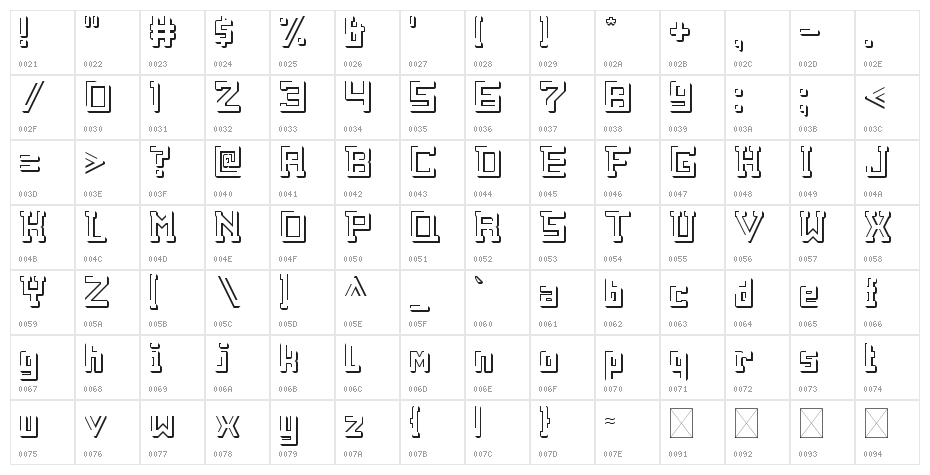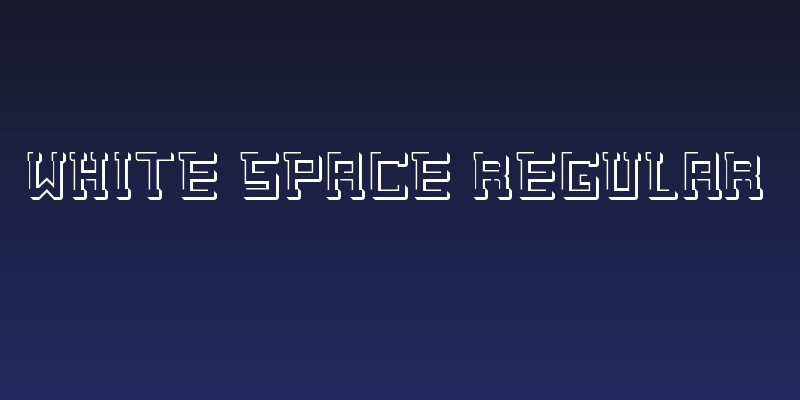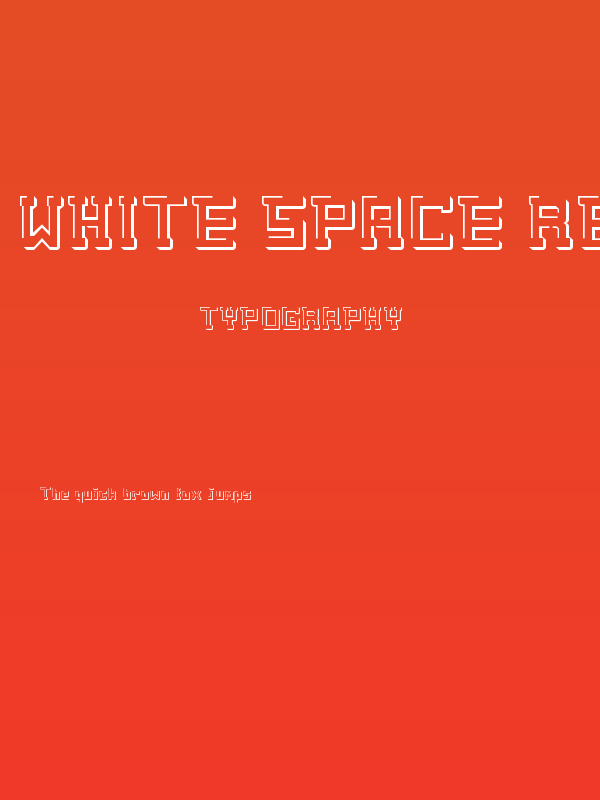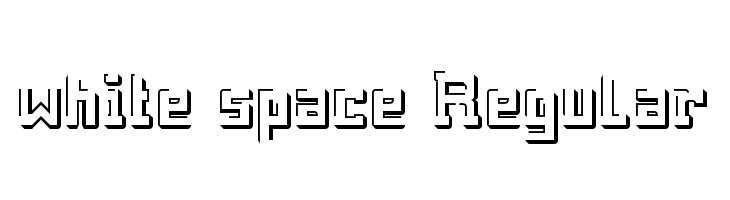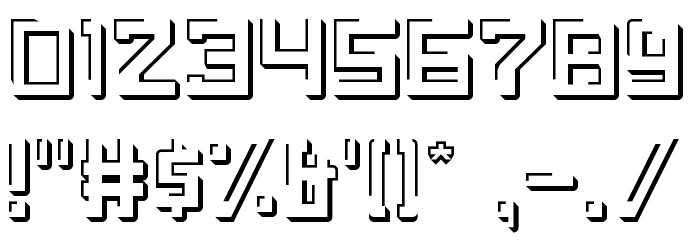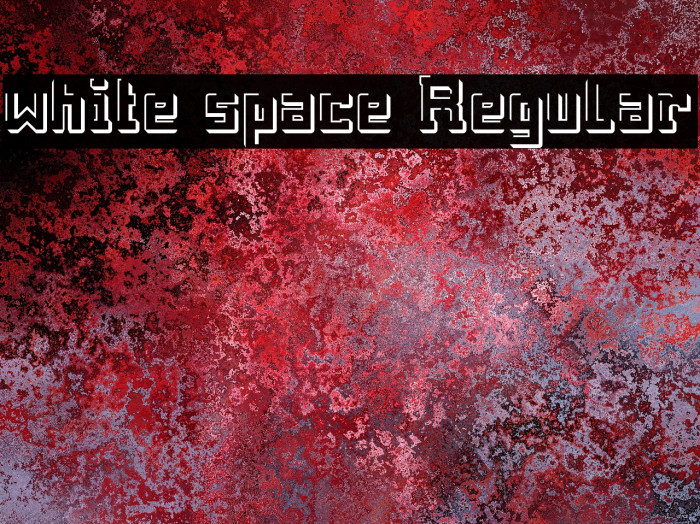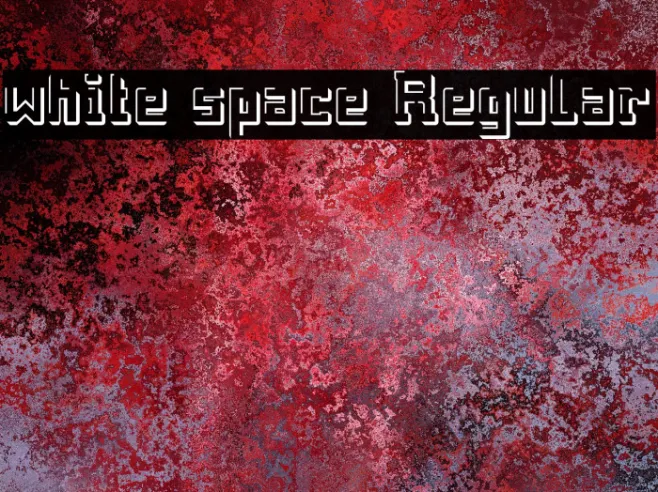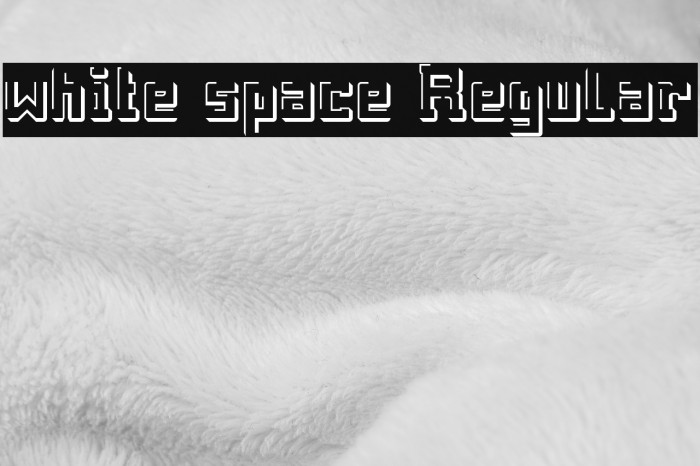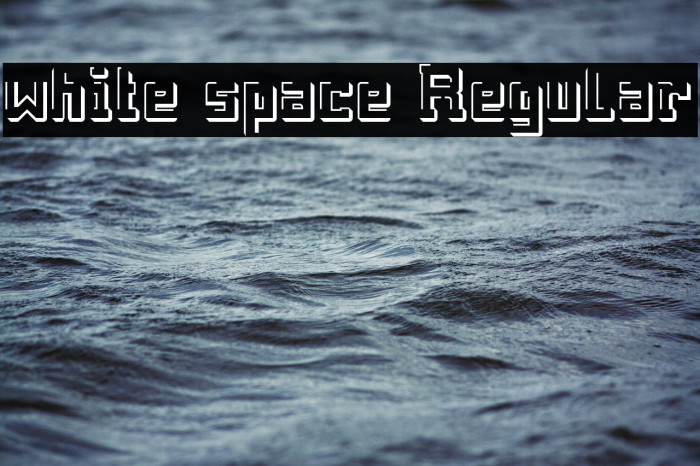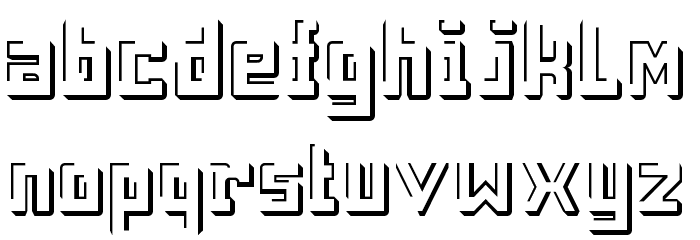
white space Regular Font
white space Regular Description
This font features a unique and modern design with a three-dimensional effect created by its shadowed outline. The characters are bold and geometric, giving them a futuristic and digital appearance. The uppercase and lowercase letters maintain a consistent style, with sharp angles and clean lines. The numerals and special characters follow the same design principles, ensuring a cohesive look across all elements. The font's distinct style makes it stand out, ideal for projects that require a bold and eye-catching typeface.
| Proposed Projects | Ideal for digital art, video game titles, tech branding, and futuristic-themed designs. |